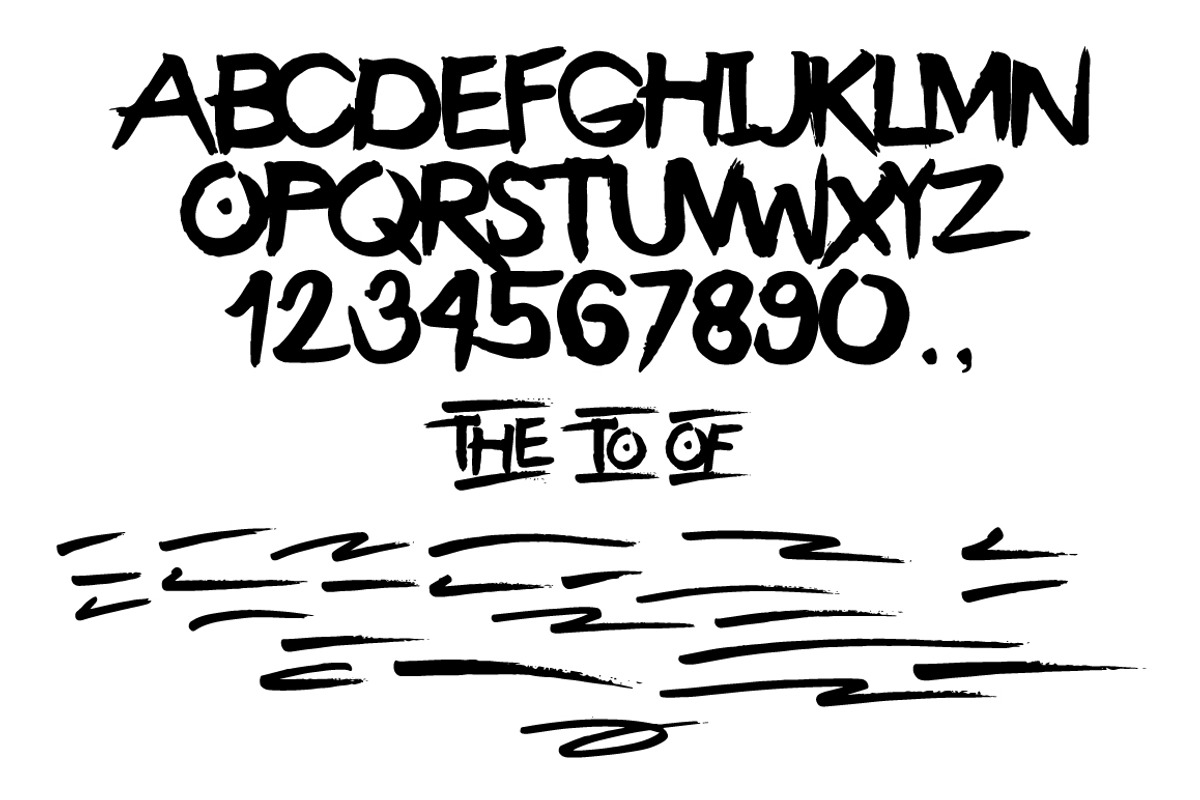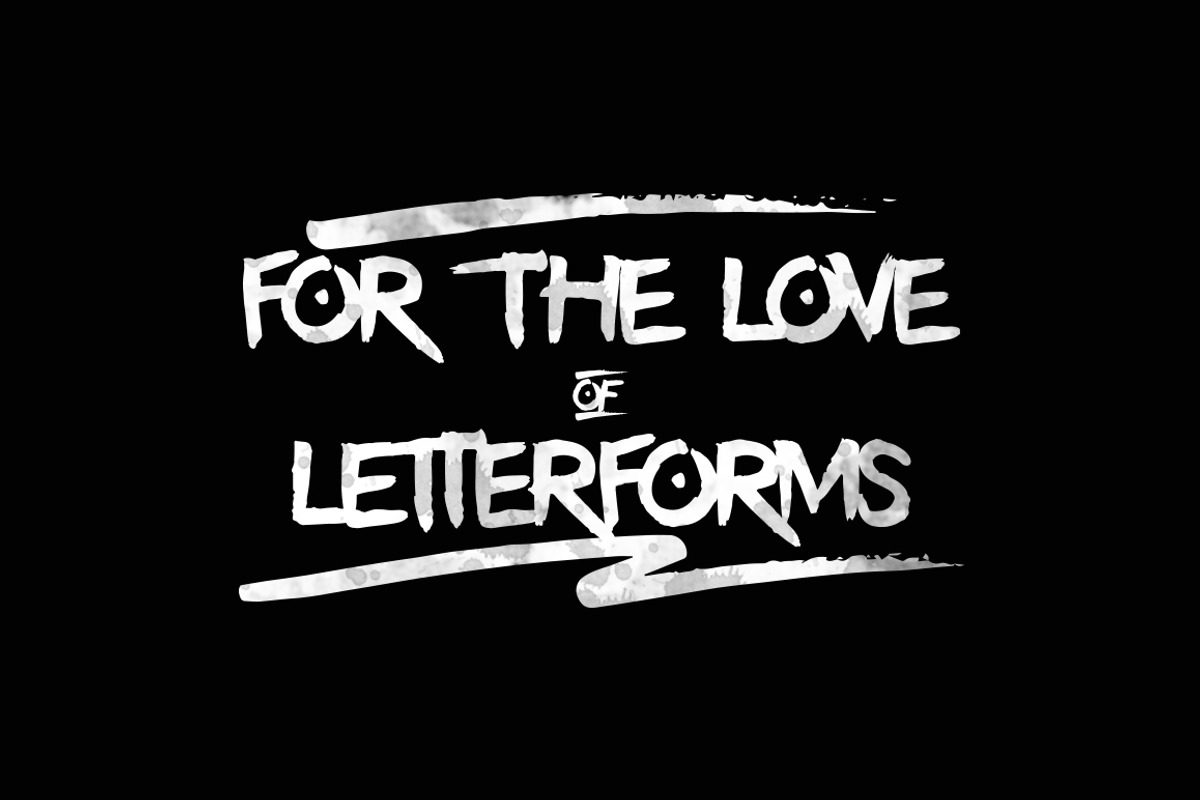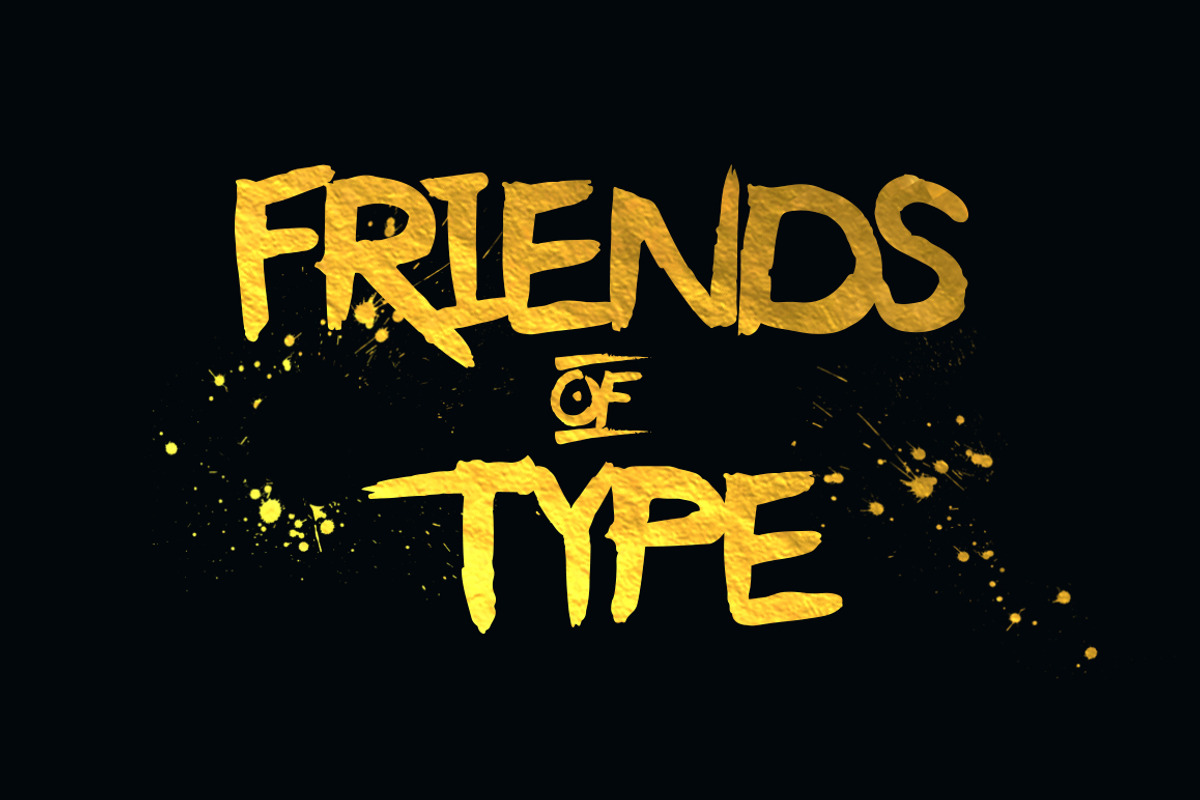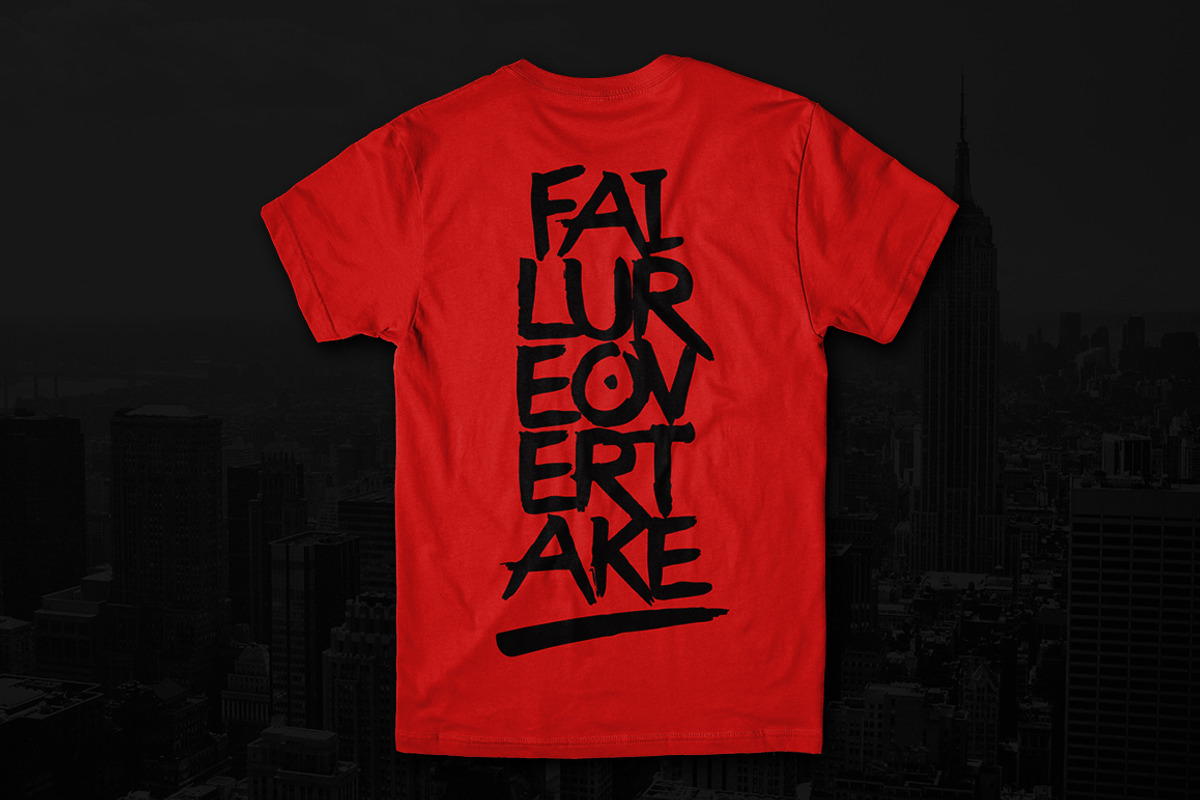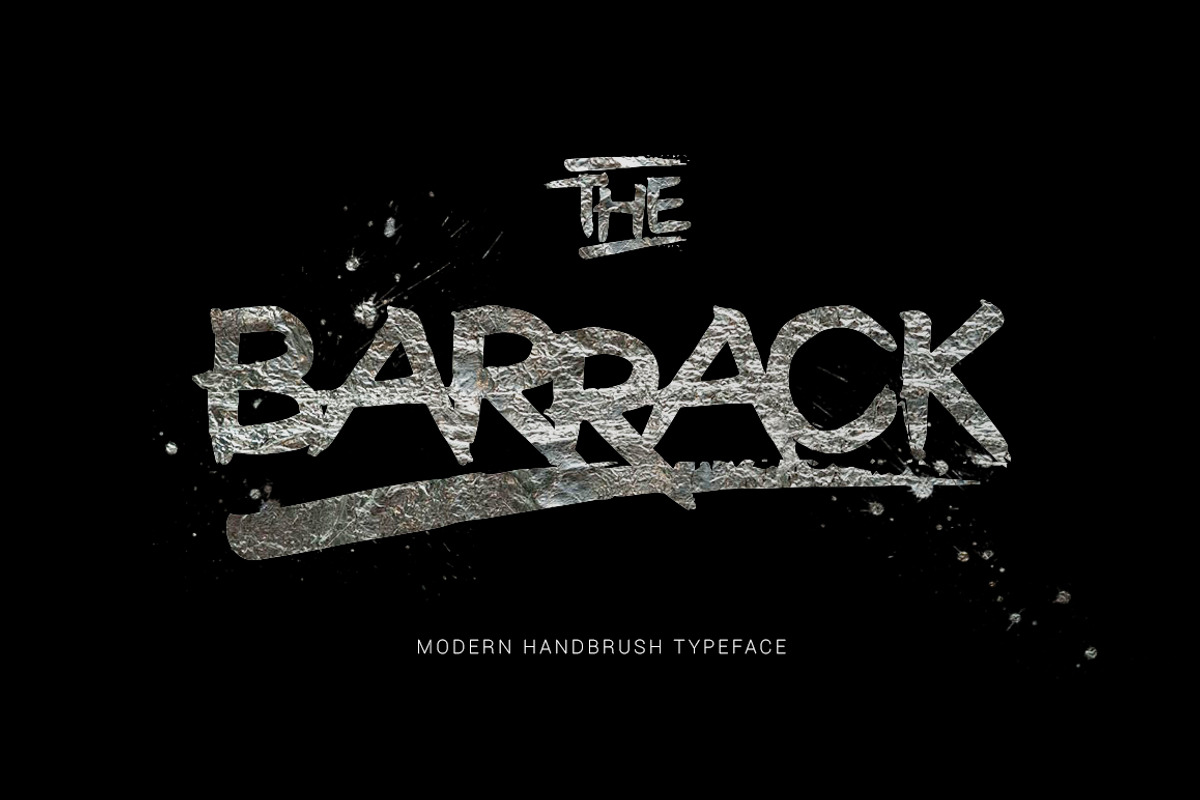
The Barrack Typeface
The Barrack Typeface by Thirtypath Studio is a font selected for branding, posters, packaging, typography.
- Use the Uppercase for the Underline, accessible in the Adobe Illustrator Glyphs panel.
Why The Barrack Typeface is worth a look
The Barrack Typeface by Thirtypath Studio fits naturally into Branding, posters, packaging, typography.